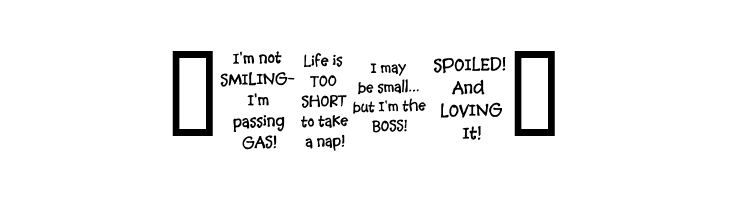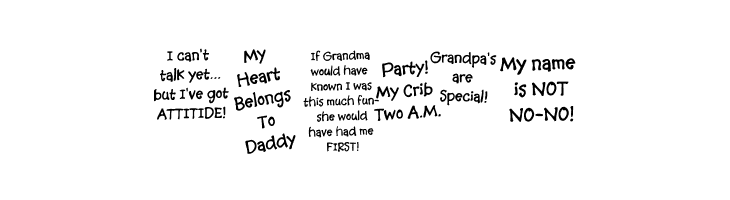
KR Babiez Font
A playful, hand-drawn font with a childlike, whimsical style.
KR Babiez Two Font
A playful, childlike handwritten font with irregular, rounded characters.